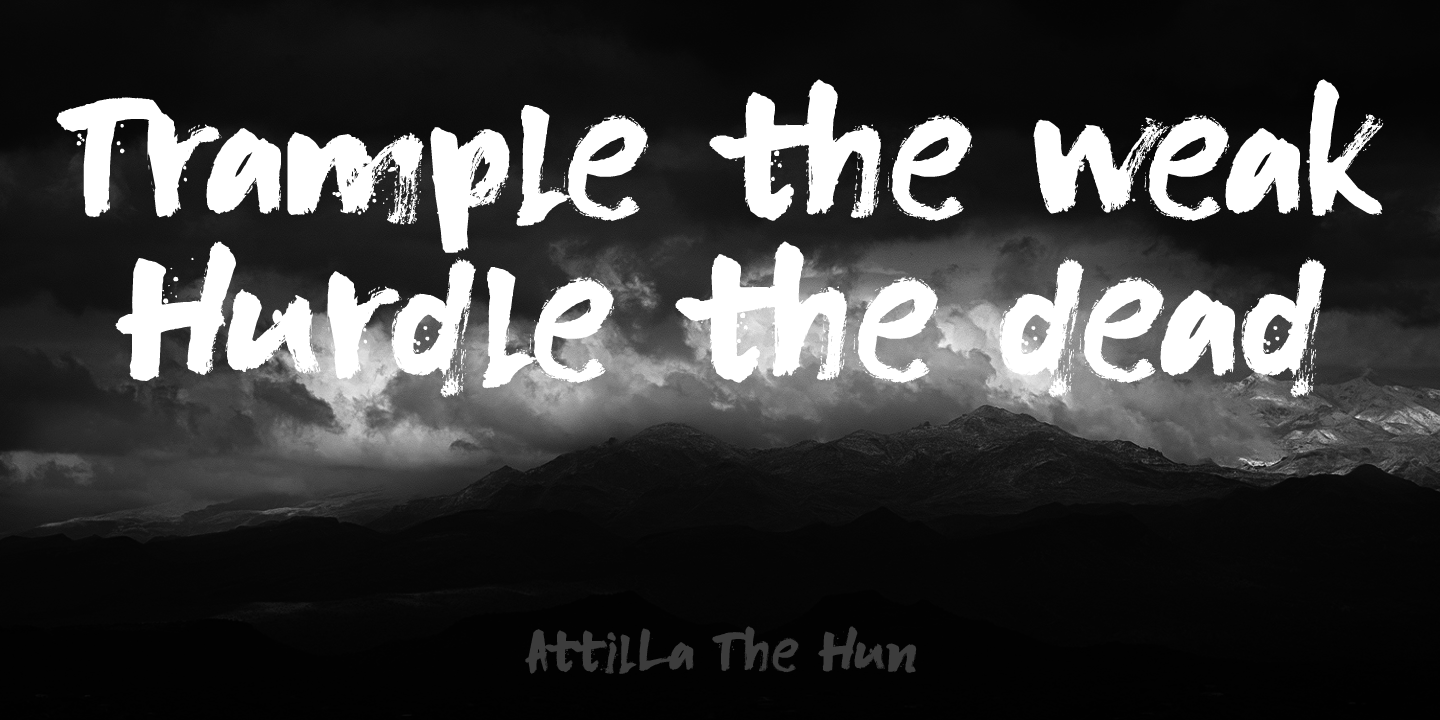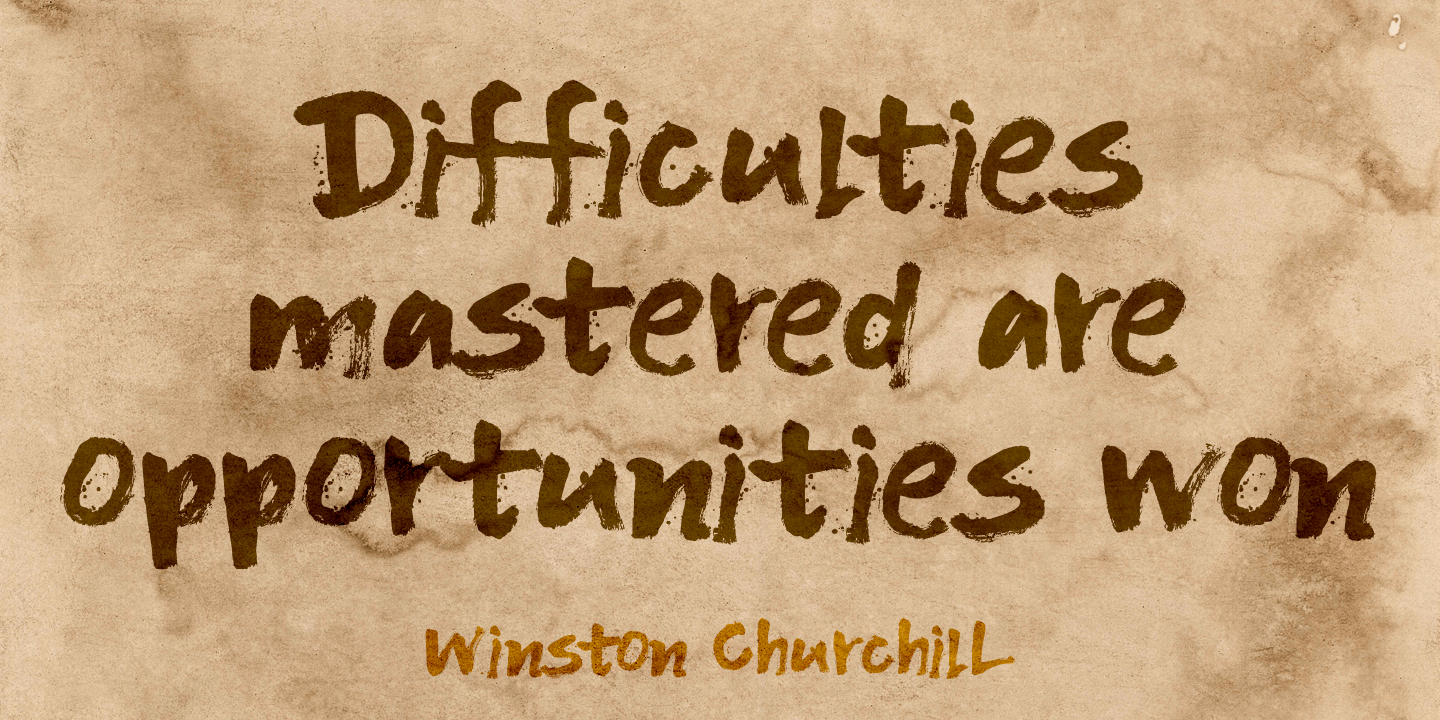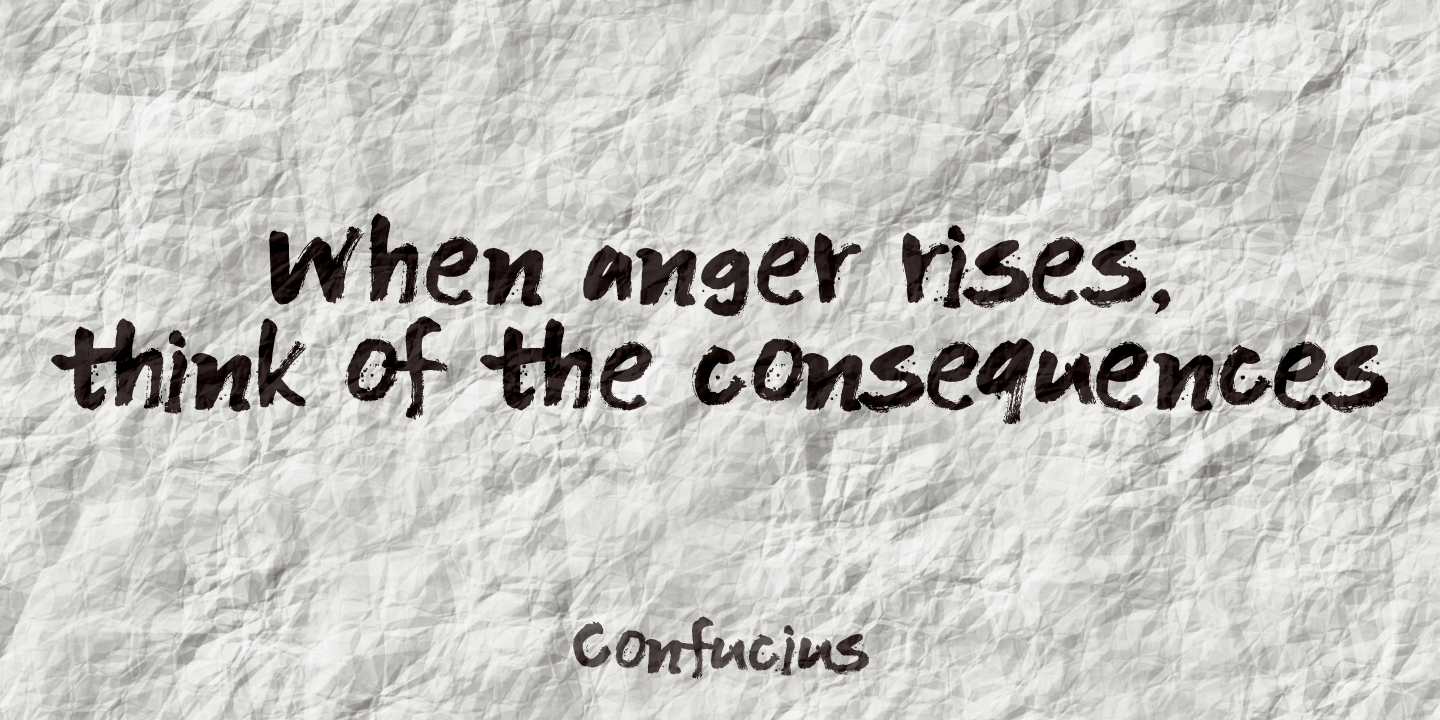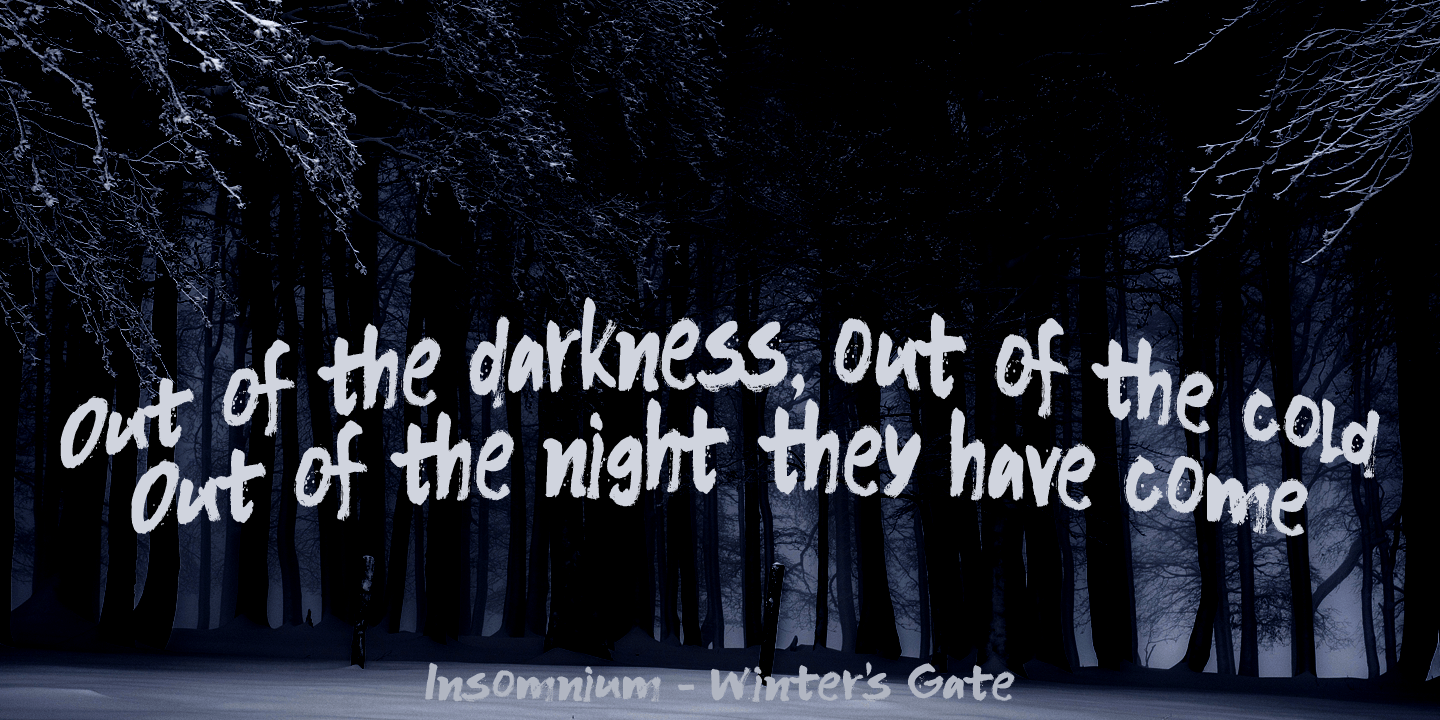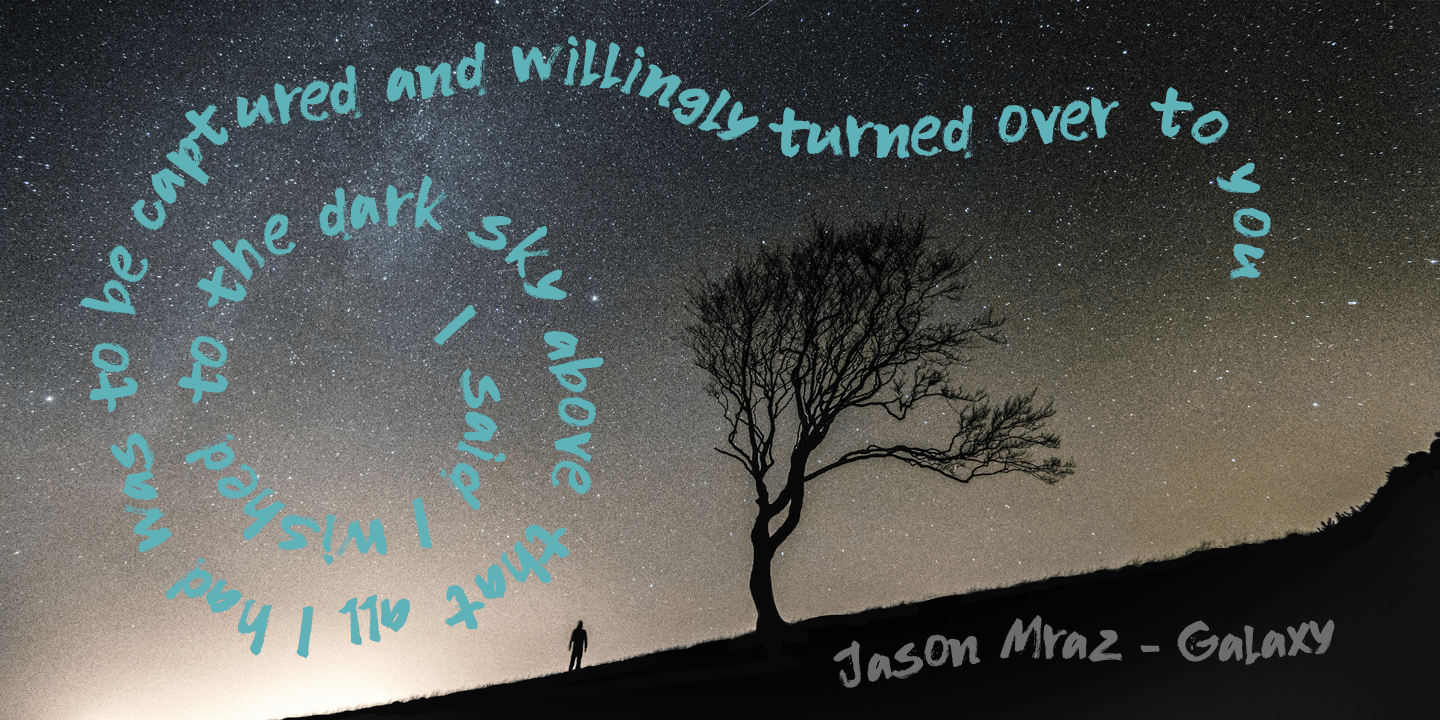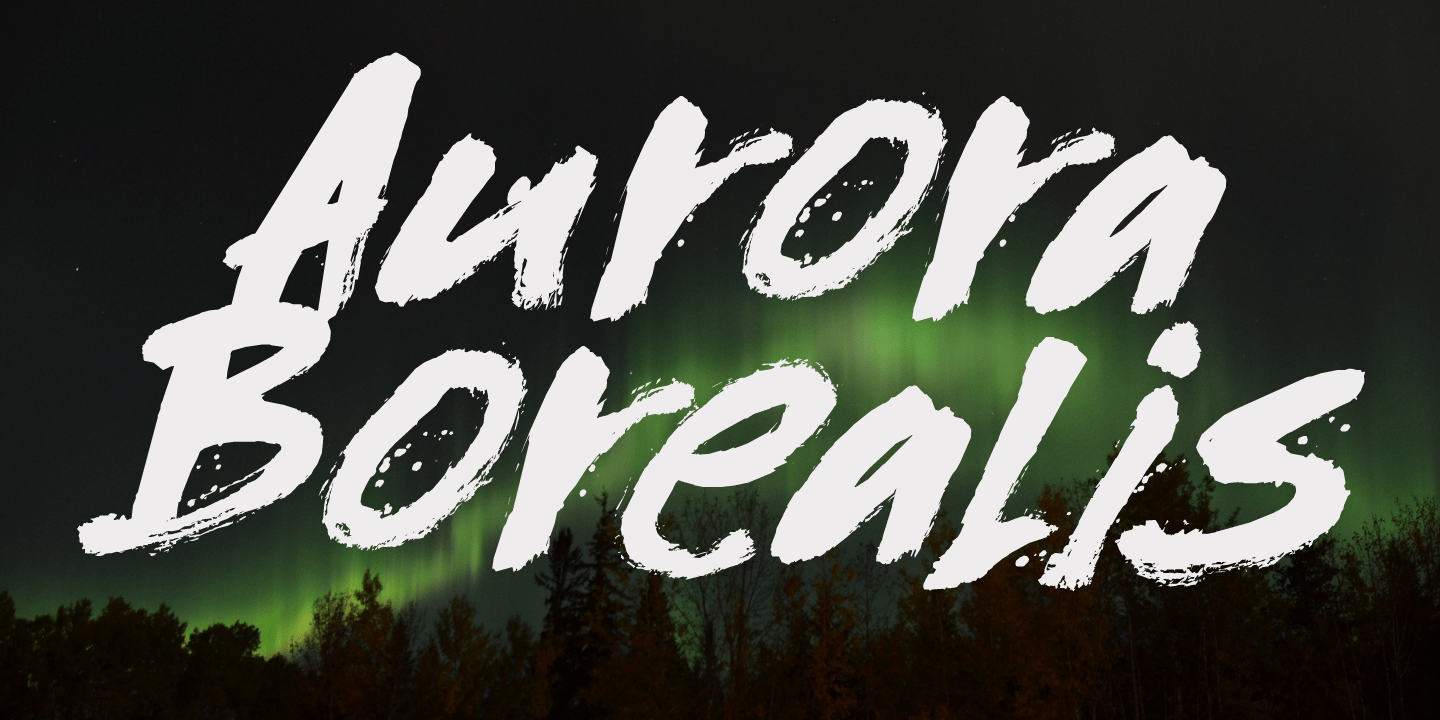
Flagellum Dei
Flagellum Dei is Latin for 'The Scourge of God.' It is a title given by later generations to Attila the Hun (406-453 C.E.). Flagellum Dei is also a rather scary font, which I made with the use of a stiff brush and some China ink. Of course you could use this quite versatile font to scare the bejesus out of your friends, but I'd much rather see it used on book covers, posters and album artwork. Flagellum Dei comes with a horde of diacritics.